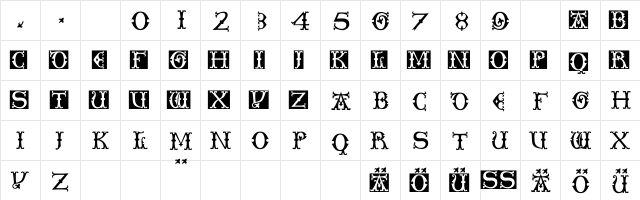
AIToskana Medium
Design Context for AIToskana Typeface
AIToskana is a composed and adaptable typeface that performs quietly and consistently across a wide range of design contexts.